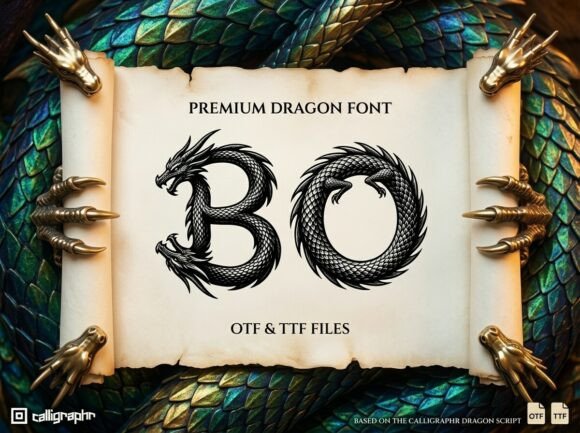
Unleash the Power of Legend with the Premium Dragon Font
Are you looking for a font that can add a touch of ancient mythology and master-level illustration to your designs? Look no further than the Premium Dragon Font, a stunning decorative typeface that is sure to take your visual identity to the next level. This exceptional font is meticulously crafted to bring you a sense of unyielding power, ancient mystery, and artisanal prestige.
A Masterpiece of Typography
Every character in the Premium Dragon Font is an intricate work of art, featuring serpentine dragon bodies coiled into letterforms with extraordinary attention to detail. The font showcases rhythmic scales, sharp dorsal spines, and fiercely expressive dragon heads that form the terminals, making it a true masterpiece of typography. The level of detail is unparalleled, ensuring that your designs stand out from the crowd.
Perfect for Fantasy and Gaming Designs
The Premium Dragon Font is an exceptional choice for designers looking to create fantasy novel covers, epic gaming titles, high-concept apparel branding, and thematic event posters. The font’s majestic and powerful presence is sure to captivate your audience, transporting them to a world of ancient mythology and legend. Whether you’re a designer, gamer, or crafty enthusiast, this font is sure to inspire your creativity.
Elevate Your Brand with a Legendary Presence
With the Premium Dragon Font, you can deliver a sense of unyielding power, ancient mystery, and artisanal prestige to your visual identity. This massive display font is sure to make your brand stand out, ensuring that you carry a legendary presence in the world of design. Whether you’re looking to create a bold logo, eye-catching poster, or captivating book cover, this font has got you covered.
Key Features of the Premium Dragon Font
• Intricate dragon designs coiled into letterforms
• Extraordinary attention to detail, including rhythmic scales and sharp dorsal spines
• Fiercely expressive dragon heads that form the terminals
• Perfect for fantasy novel covers, epic gaming titles, and high-concept apparel branding
• Suitable for thematic event posters and other design projects
• Massive display font with a legendary presence
Tips for Using the Premium Dragon Font
To get the most out of the Premium Dragon Font, here are a few tips to keep in mind:
• Use it sparingly: Due to its intricate design, it’s best to use the Premium Dragon Font sparingly to avoid overwhelming your design.
• Pair it with a simple font: Pair the Premium Dragon Font with a simple, clean font to create a striking contrast.
• Experiment with colors: The Premium Dragon Font looks stunning in metallic colors, such as gold, silver, and bronze.
Font Name Bo Font
Author Bluebird
In conclusion, the Premium Dragon Font is a stunning decorative typeface that is sure to unleash the power of legend in your designs. With its intricate dragon designs, extraordinary attention to detail, and legendary presence, this font is perfect for designers, gamers, and crafty enthusiasts looking to create captivating and inspiring designs. So why wait? Unleash the power of legend with the Premium Dragon Font today!